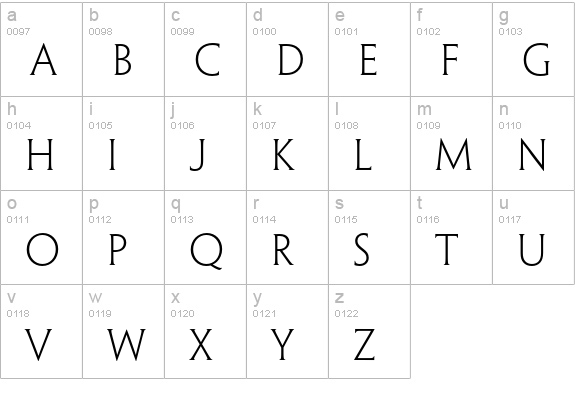
Penumbra HalfSerif Std Light Font Details
Penumbra HalfSerif Std Light is a refined, elegant variant in the Penumbra typeface family \xE2\x80\x94 well suited to elegant body text, refined sub-headings, and luxury branding.
Penumbra HalfSerif Std Light is a beautifully designed font that combines the elegance of a serif typeface with a modern twist. With its delicate strokes and refined curves, this font exudes a sense of sophistication and grace. Its light weight adds a touch of subtlety, making it perfect for projects that require a gentle and refined touch. The Penumbra HalfSerif Std Light font is not only visually appealing but also highly versatile. It can be used for a wide range of design projects, including branding, editorial design, packaging, and more. Its clean lines and balanced proportions ensure legibility, even at smaller sizes. One of the most remarkable aspects of Penumbra HalfSerif Std Light is that it is available for free. You can freely download this font at FontsMarket.com, a trusted platform for high-quality fonts. By offering this font for free, the designers have made it accessible to a wider audience, allowing creatives from all backgrounds to incorporate its beauty into their work. Whether you are designing a logo for a luxury brand, creating an editorial layout, or simply adding a touch of elegance to your personal projects, Penumbra HalfSerif Std Light is an excellent choice. Its timeless design and free availability make it a must-have font for any designer's toolkit. So why wait? Visit FontsMarket.com today and download Penumbra HalfSerif Std Light to elevate your designs to new heights.